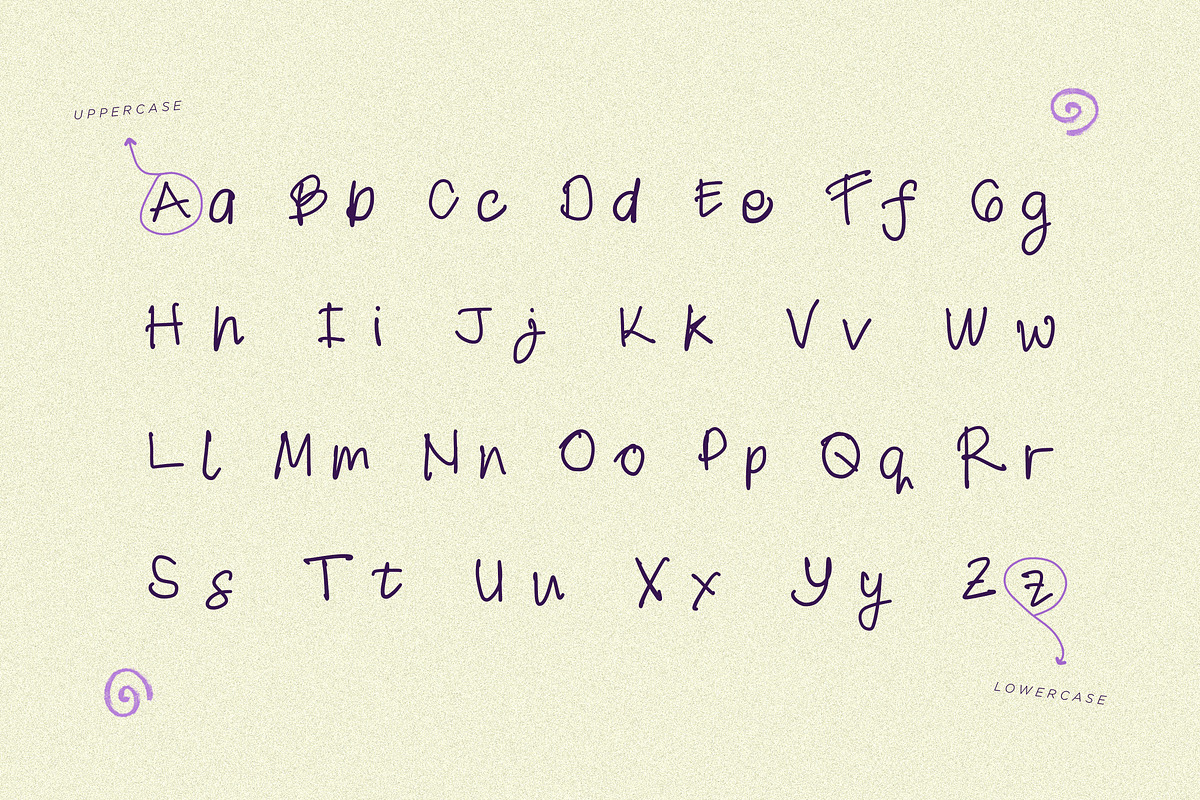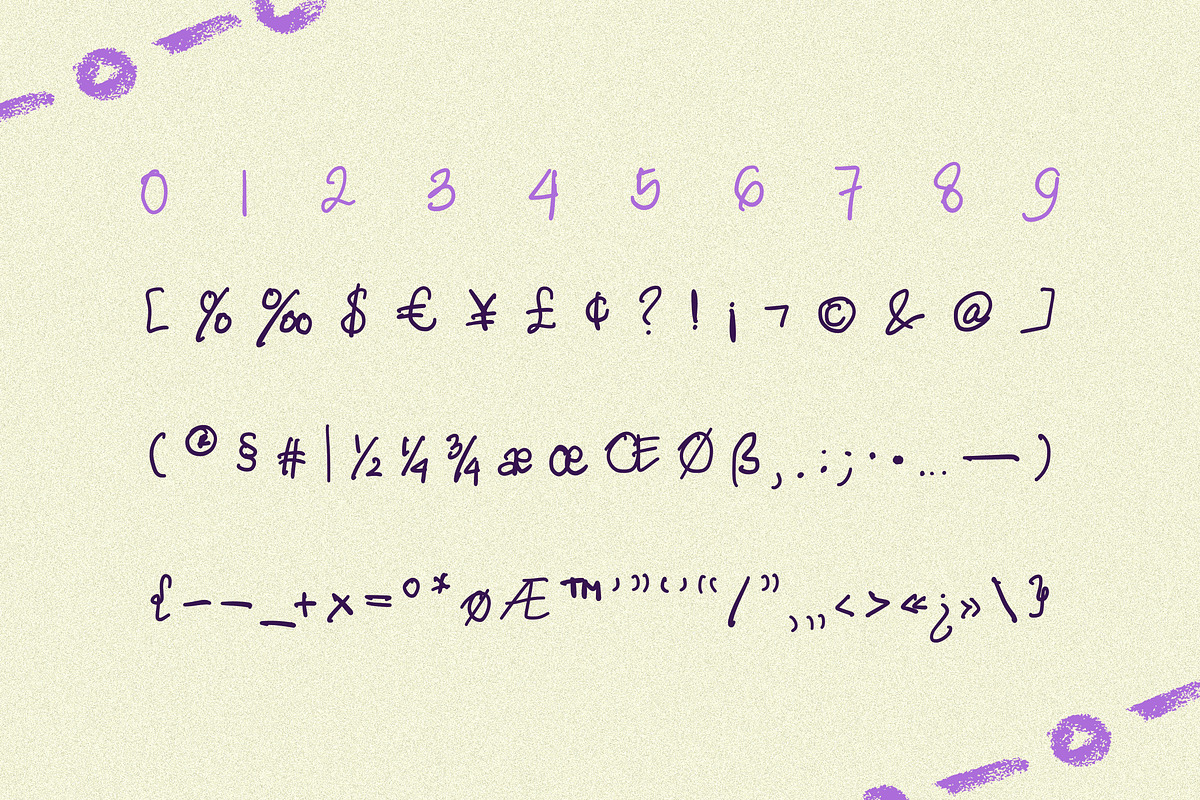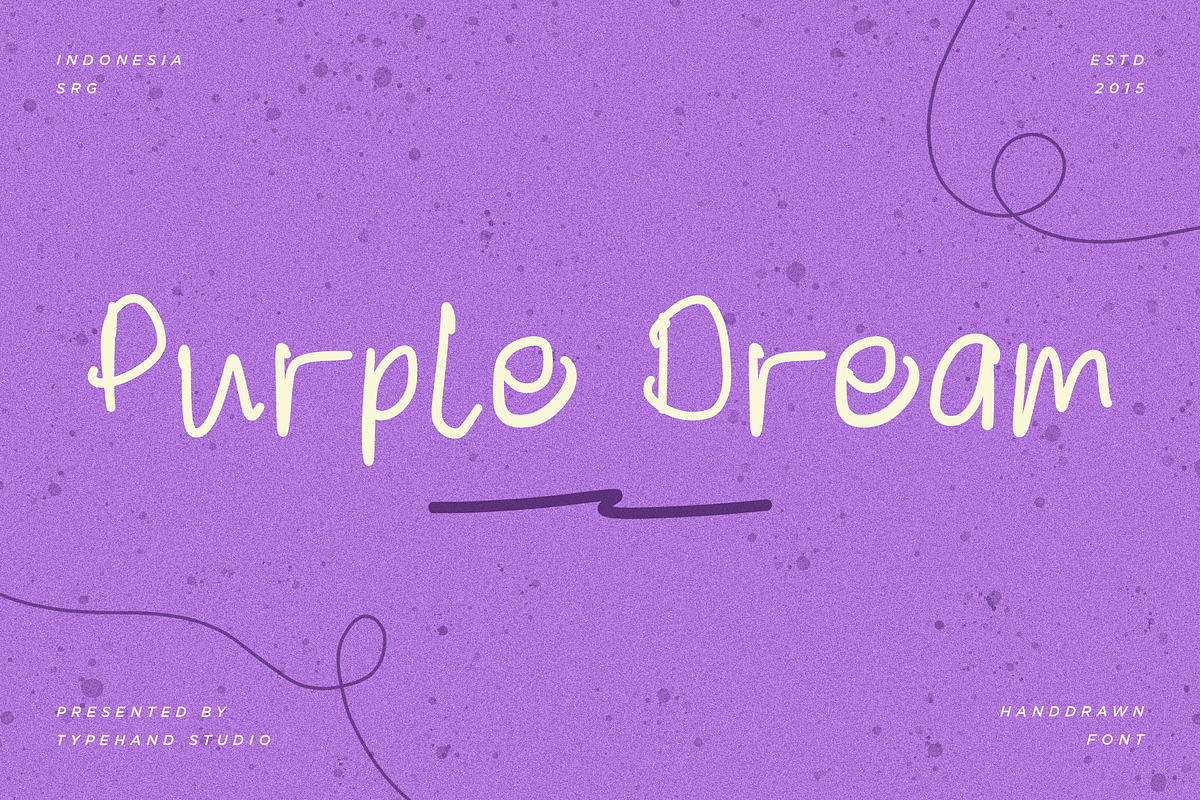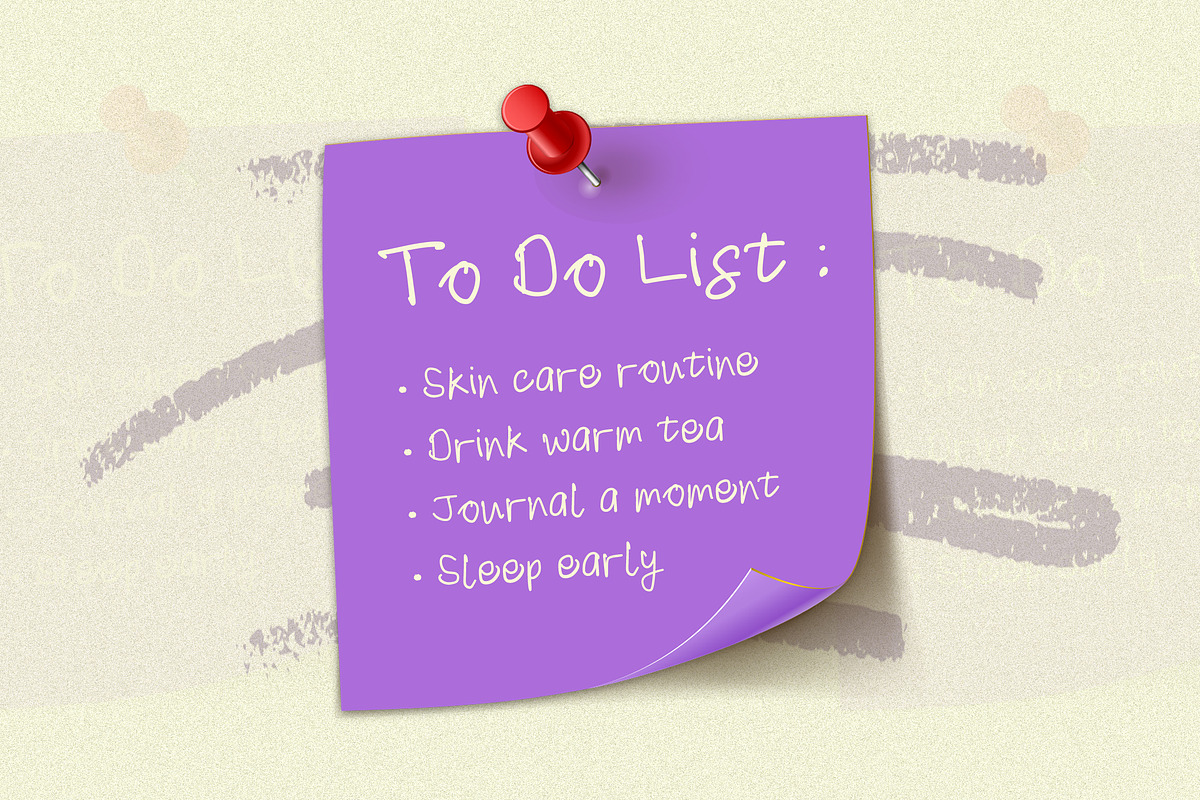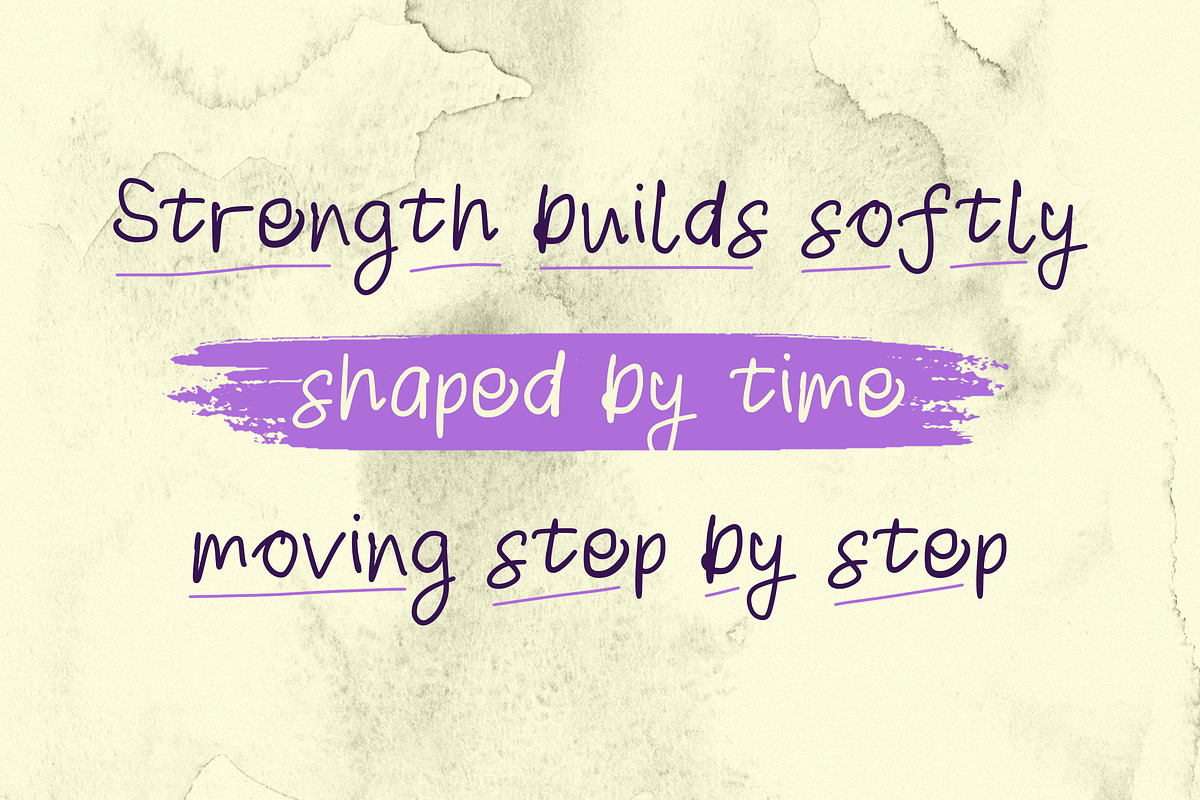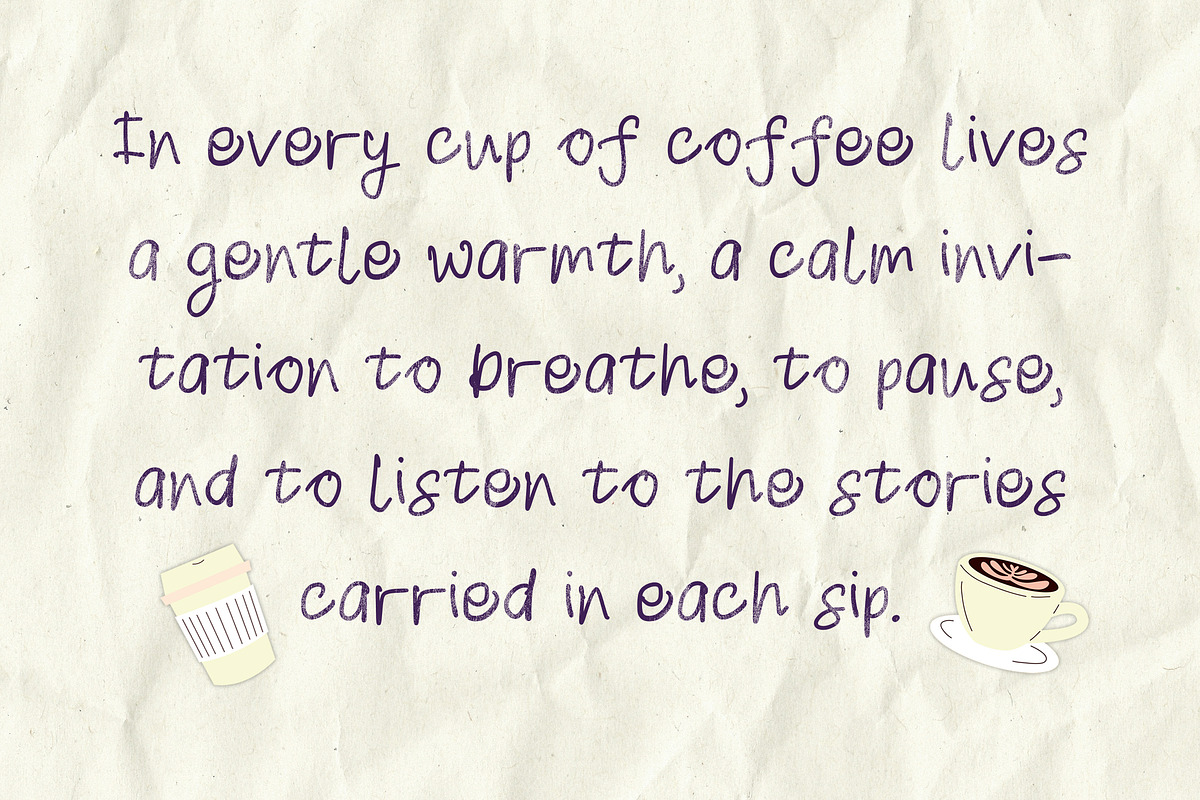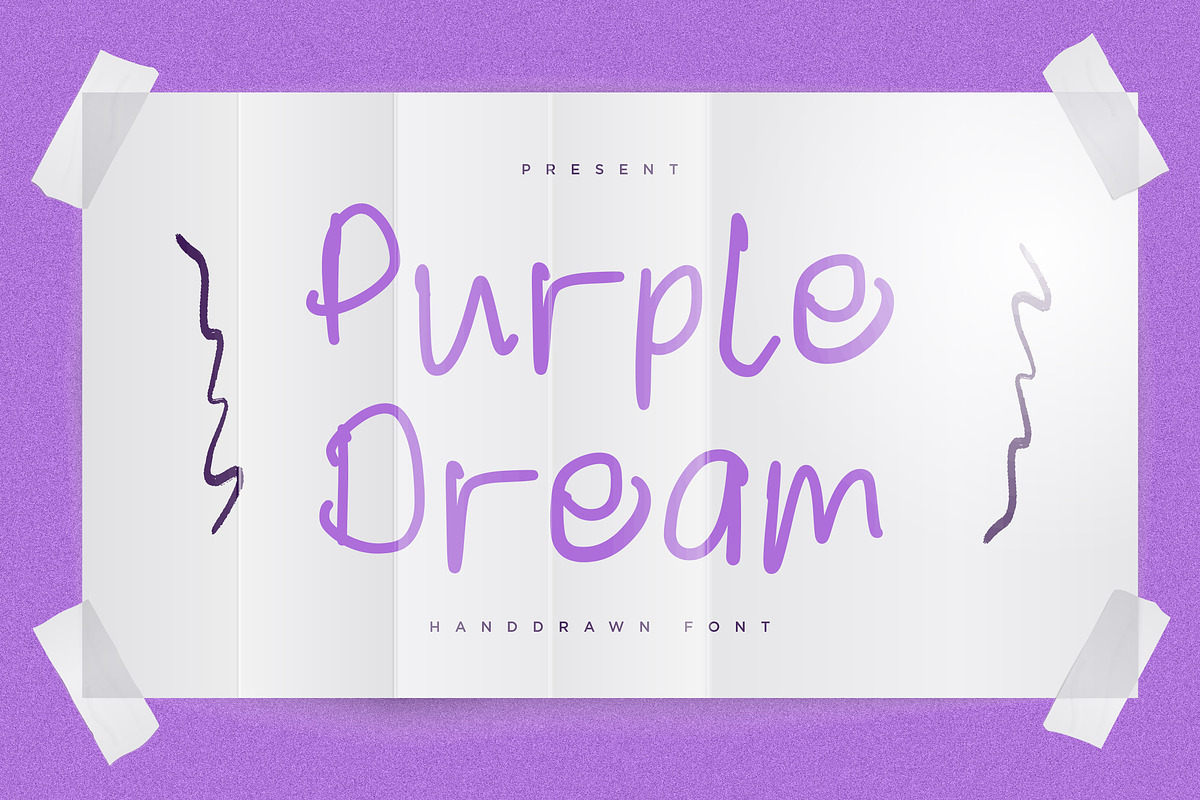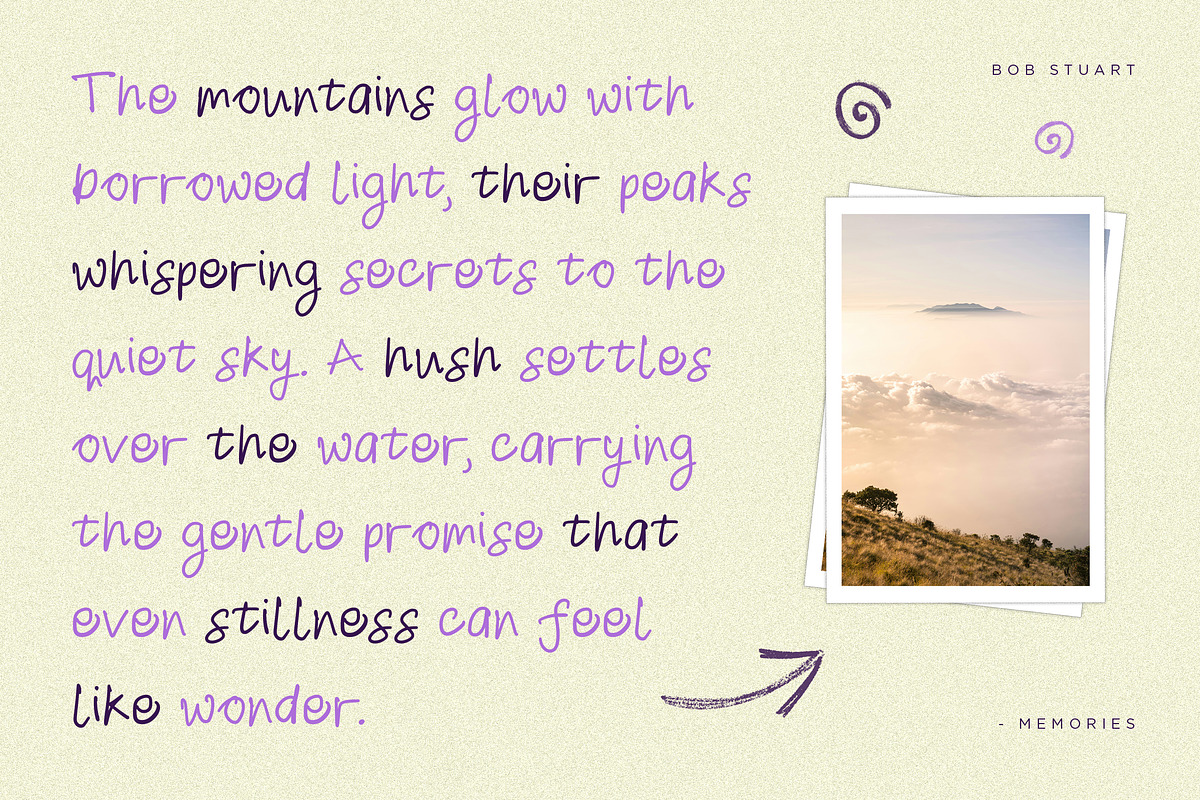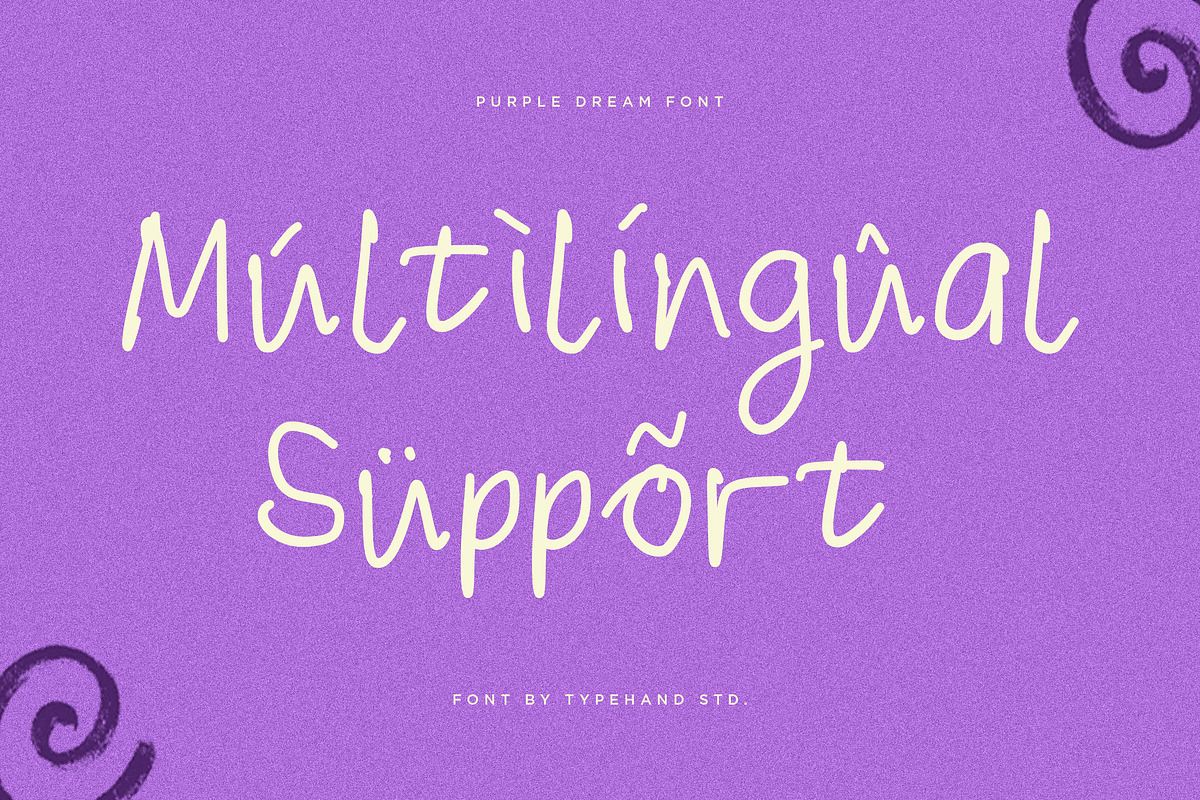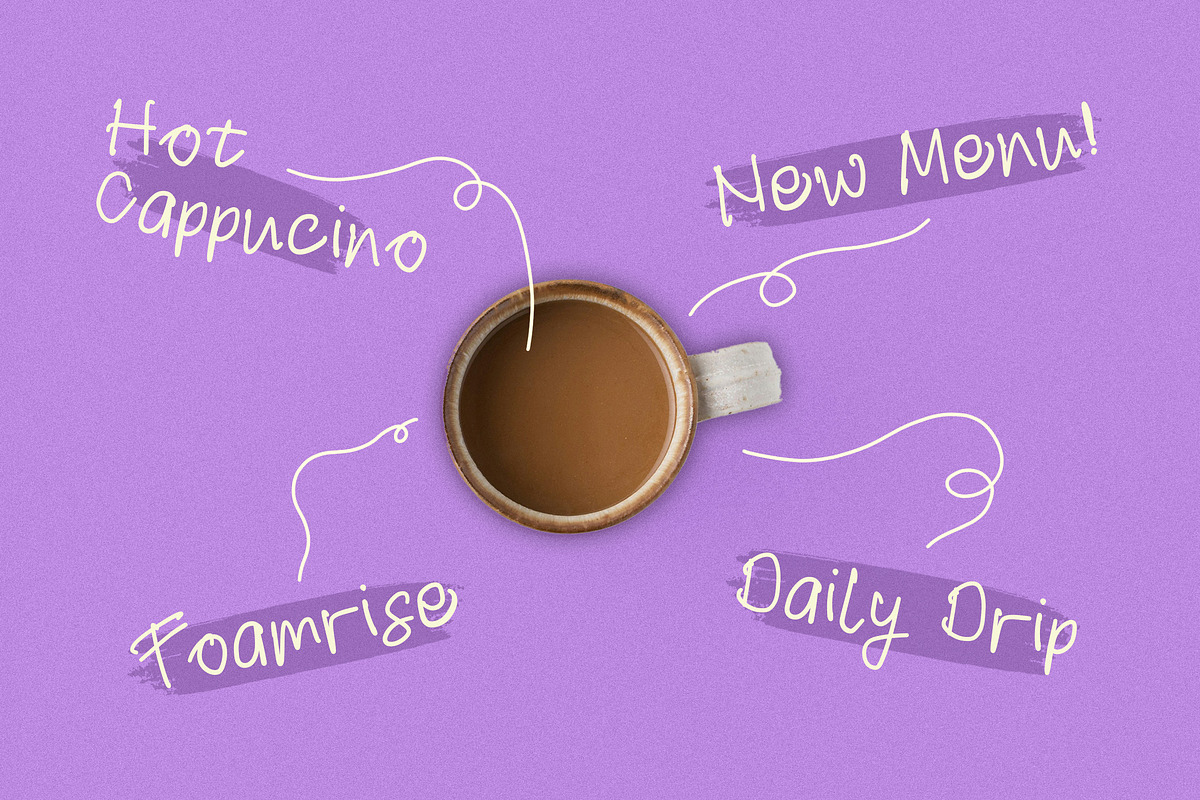
Purple Dream Handwritten
Purple Dream is a relaxed handwritten script designed to bring warmth and personality into modern design projects. Inspired by natural handwriting and casual brush pen lettering, this typeface captures the charm of authentic hand-drawn characters while remaining clean and highly readable.
The letterforms feature smooth organic curves, rounded terminals, and an easy flowing rhythm that reflects real handwriting rather than mechanical construction. This balance between spontaneity and clarity makes Purple Dream especially versatile across both digital and print applications.
With its friendly tone and approachable style, the font works beautifully in projects that aim to feel personal, creative, and lifestyle-driven. Designers can use it to create engaging logos, expressive packaging, social media graphics, inspirational quotes, and editorial layouts that feel human and relatable.
Purple Dream performs particularly well in lifestyle branding environments. Coffee shops, cafés, handmade product brands, wellness businesses, stationery lines, and organic product packaging can all benefit from its relaxed visual tone. The handwritten construction helps brands communicate authenticity, creativity, and warmth—qualities that are highly valued in contemporary branding.
Despite its casual appearance, the typeface maintains a clear structure with a relatively tall x-height and comfortable spacing, allowing it to remain legible in headlines, short paragraphs, and graphic compositions. It works well for posters, packaging labels, menus, greeting cards, planners, and digital marketing visuals.
The character set includes uppercase, lowercase, numerals, punctuation, and multilingual support, giving designers the flexibility to use the font across international branding projects.
Purple Dream is designed for creatives who want typography that feels natural, expressive, and welcoming—perfect for projects that celebrate everyday moments, storytelling, and lifestyle aesthetics.